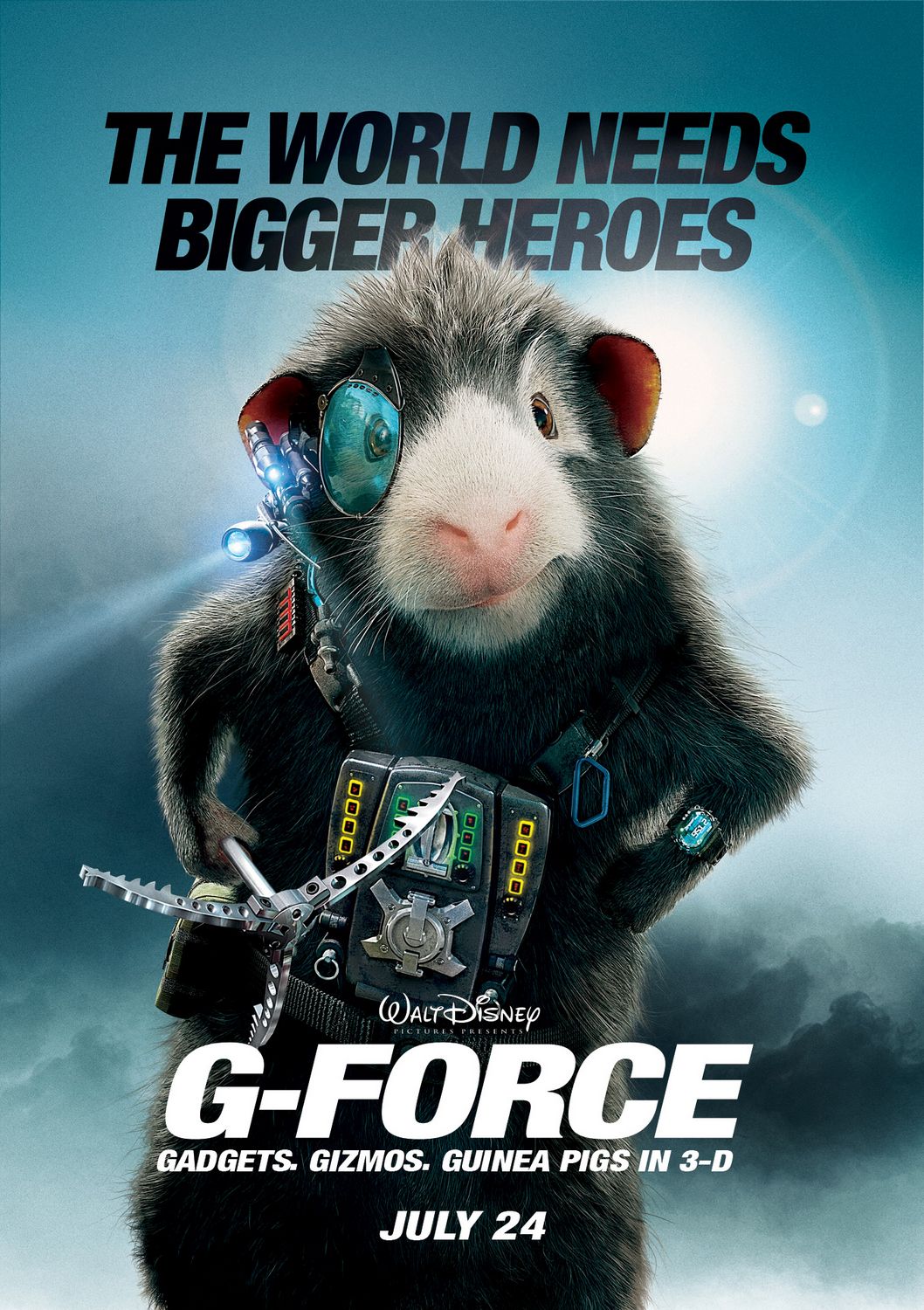
G-Force [Movie] Font
AdventureG-Force is a 2009 American action-comedy film directed by Hoyt Yeatman and produced by Jerry Bruckheimer. The film follows a team of highly trained secret agent guinea pigs who must take on a sinister billionaire intent on taking over the world.
The film ''G-Force'' title on the poster is similar to Neue Helvetica Condensed Black Oblique. The Helvetica Neue typeface is a sans serif designed by Max Miedinger and Eduard Hoffmann, based on the Akzidenz Grotesk font.